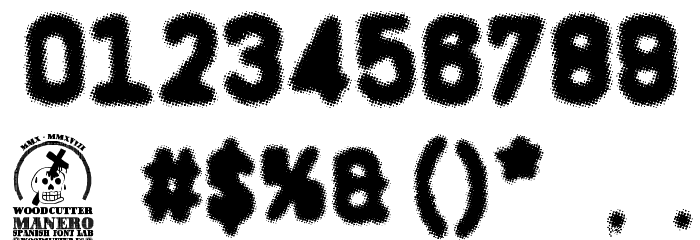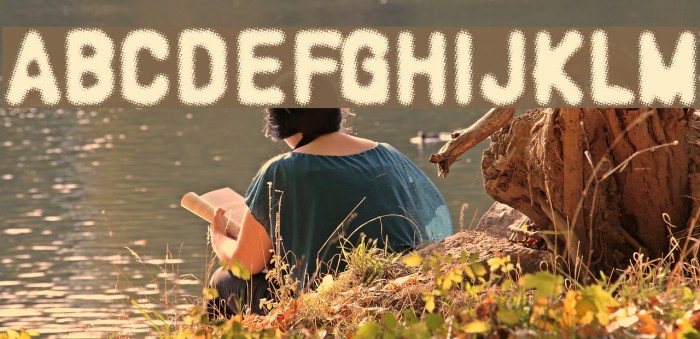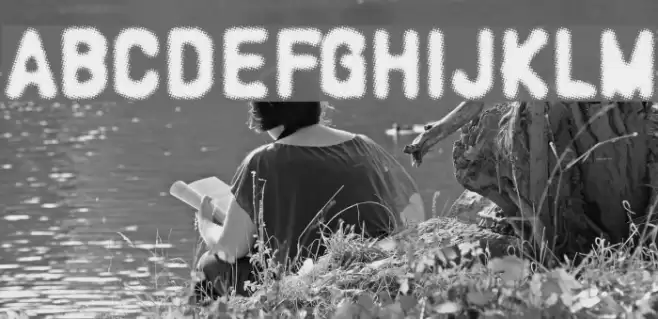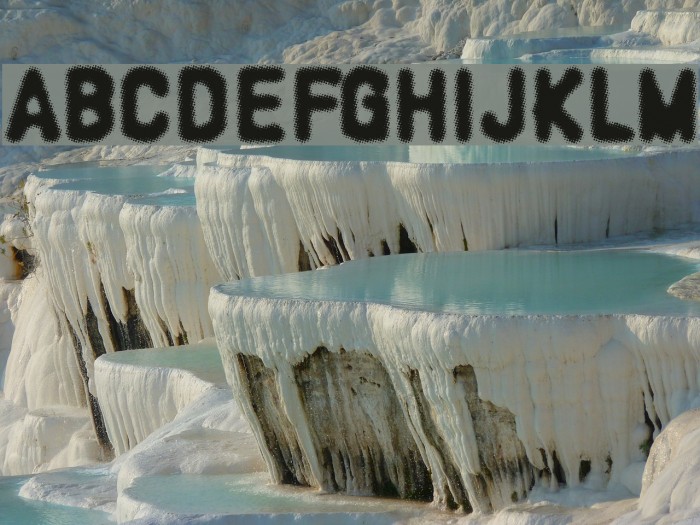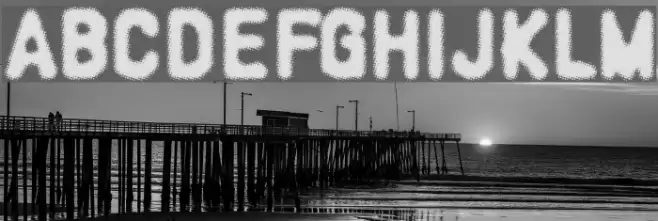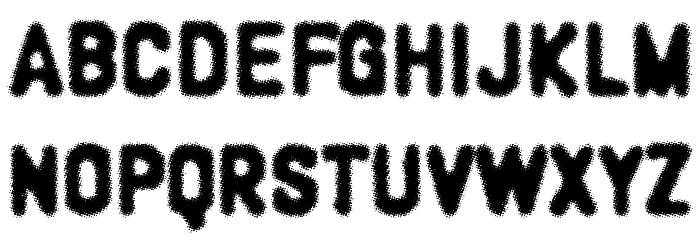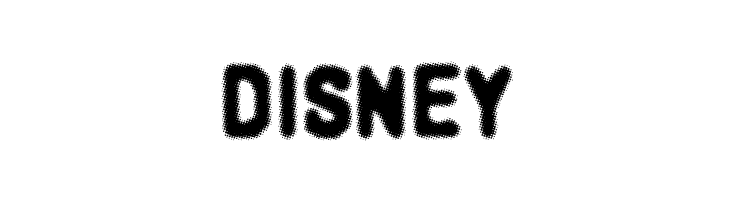
Woodcutter oligarquia Font
This font features a bold, textured style with a unique stippled effect that gives it a distinctive, eye-catching appearance. The characters are uppercase and lowercase letters, along with numbers and a selection of special characters. The design is playful yet robust, making it suitable for projects that require a strong visual impact. The stippling adds a sense of depth and texture, enhancing its decorative appeal. The overall look is modern with a touch of vintage flair, ideal for creative and artistic applications.
A bold, textured font with a stippled effect, perfect for impactful designs.
• Proposed Projects: Ideal for posters, album covers, branding, and any project needing a bold, artistic touch.